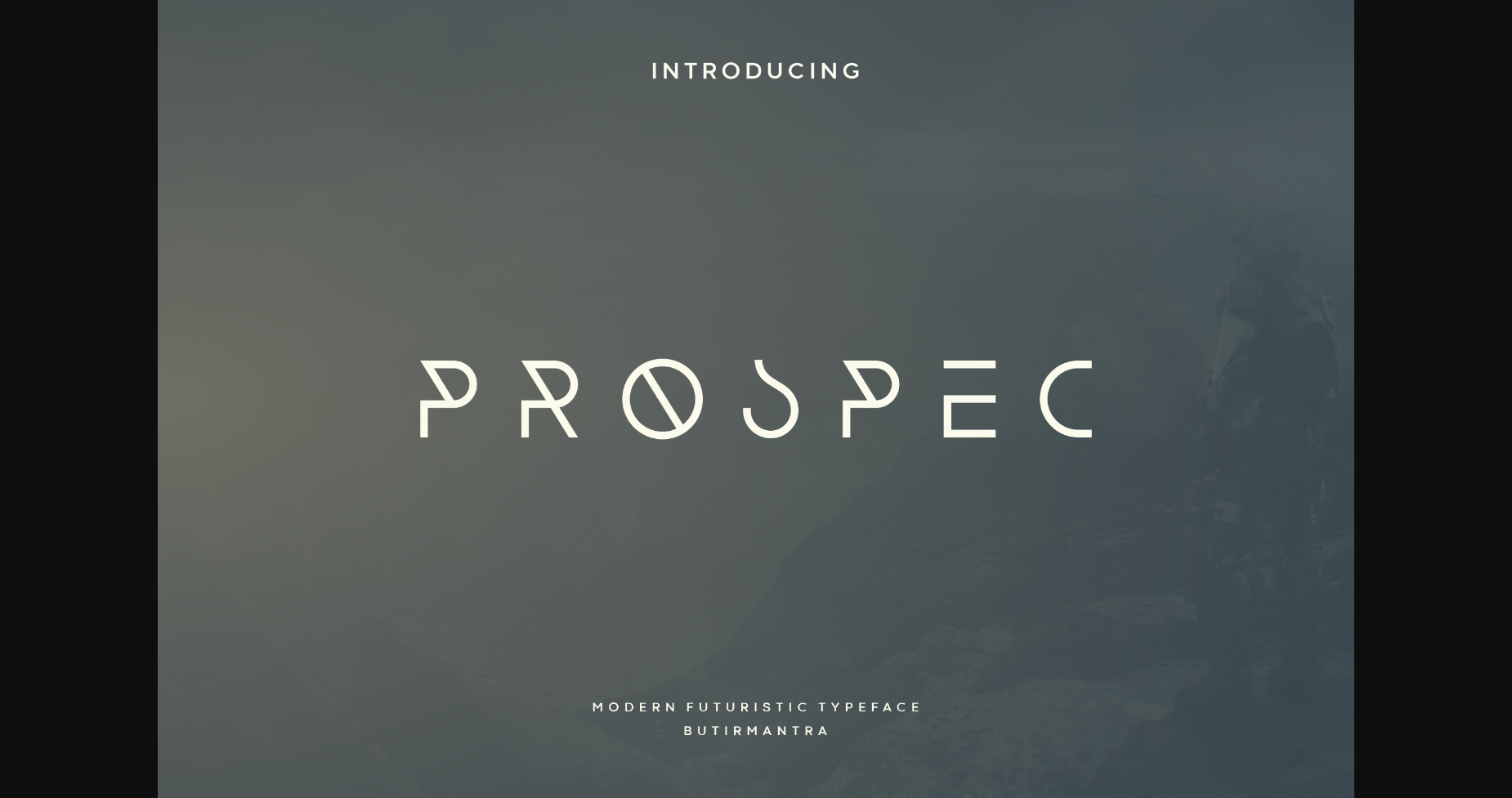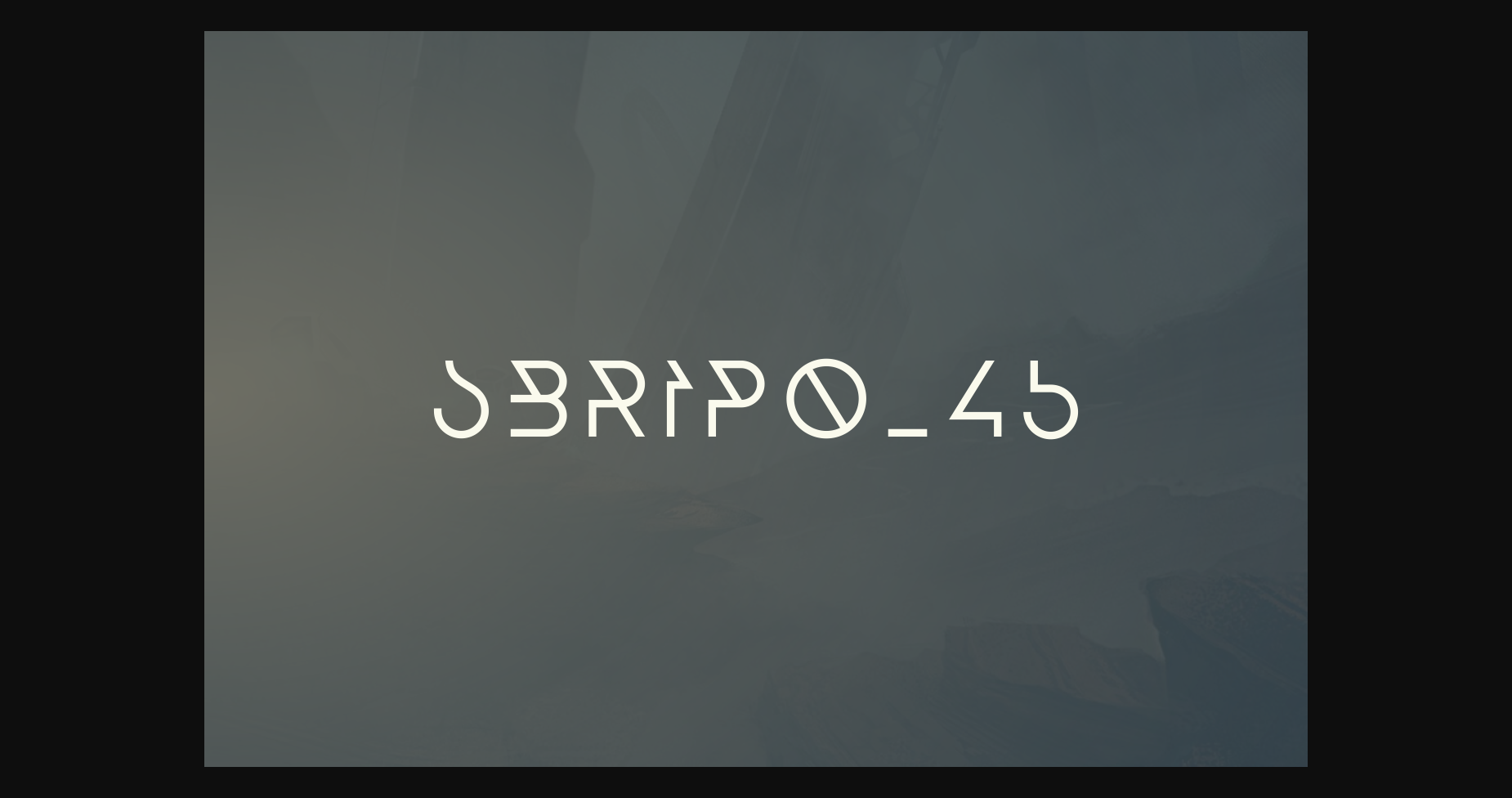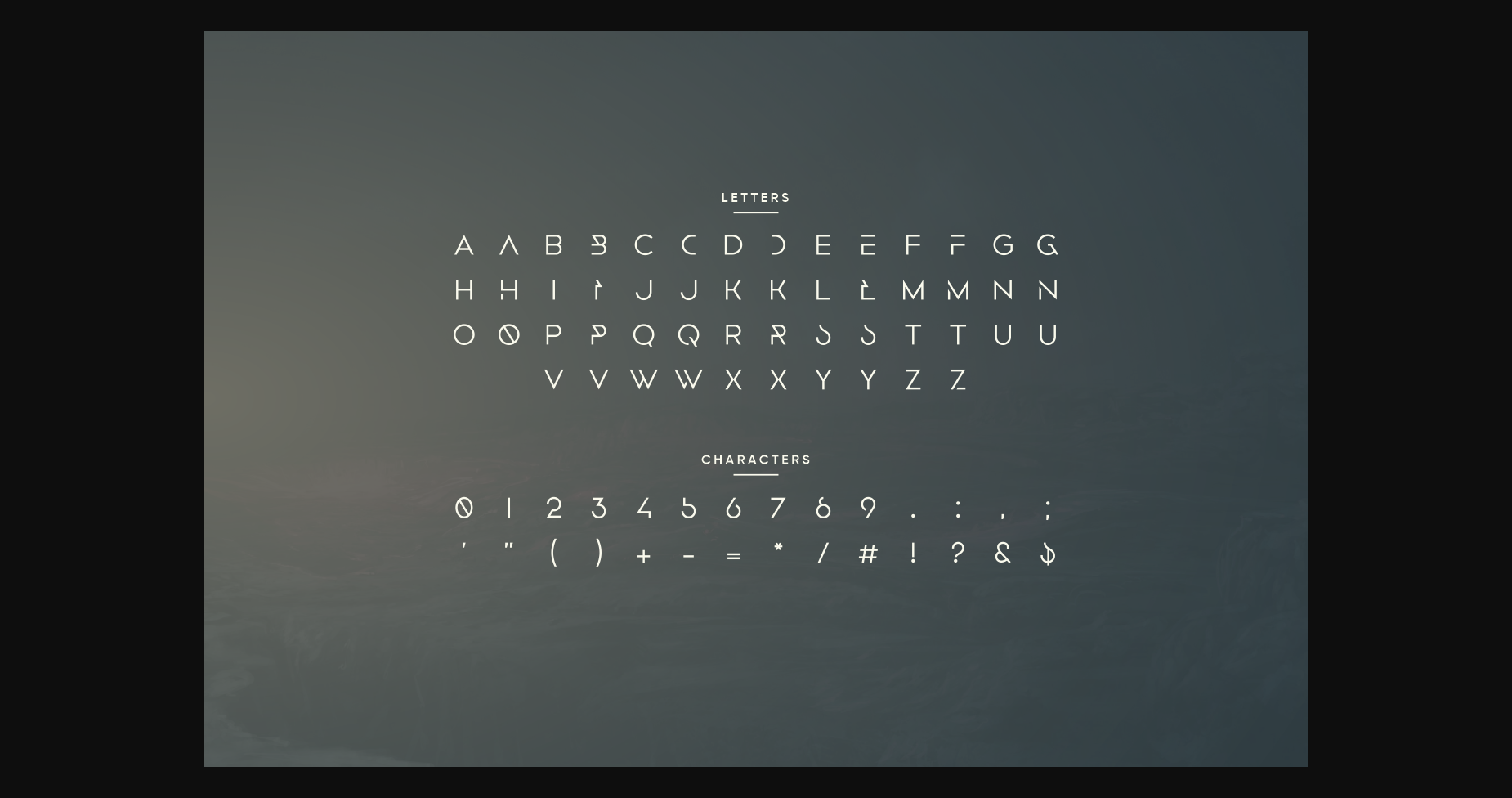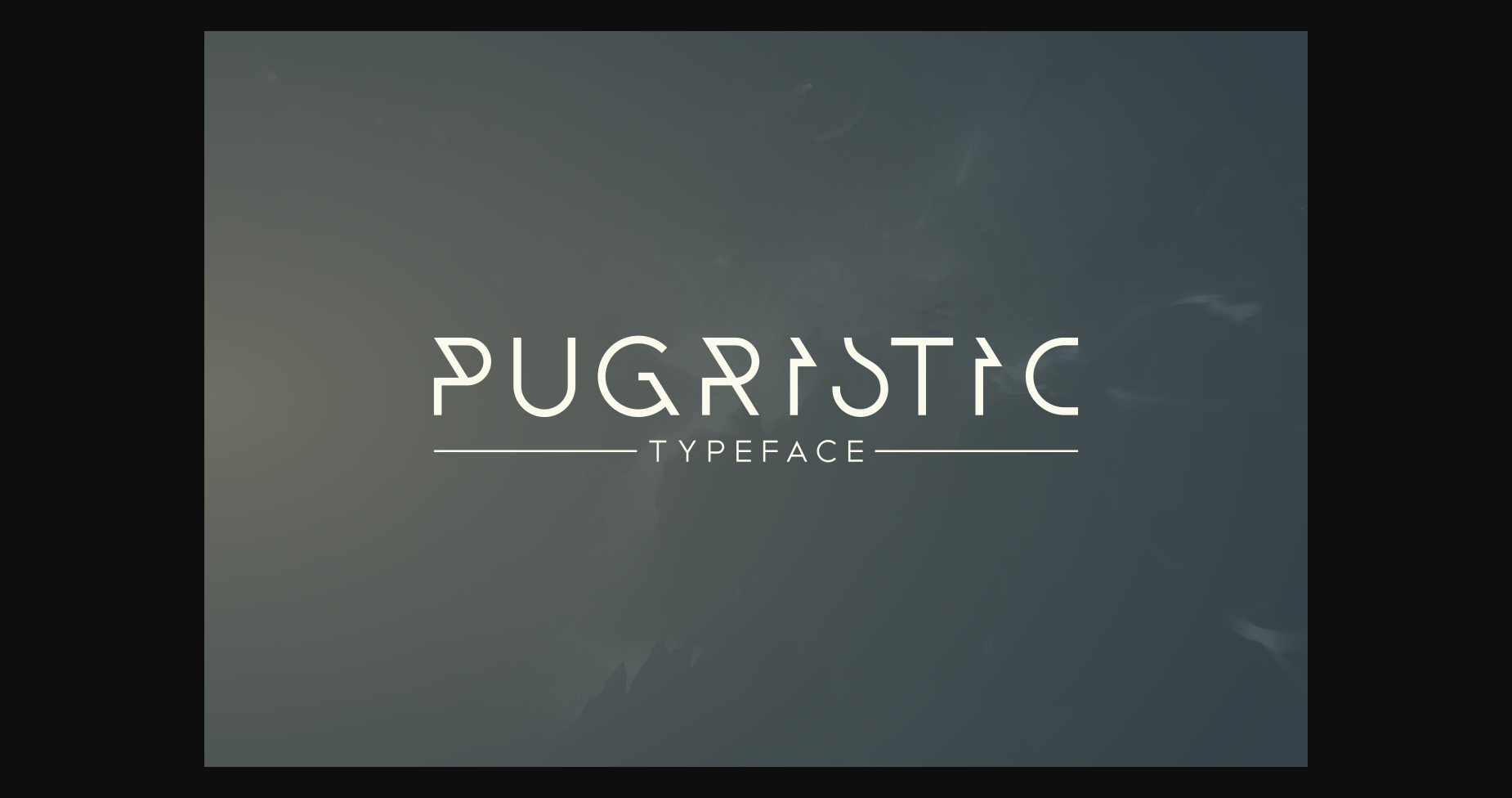
Prospec Font
About Prospec Font
Prospec is a luxury font that comes in all caps that will make your designs look both futuristic and modern, using a simple design for a clean and elegant look. You can use this font for any purpose, especially for creating future designs. This font is great for logo designs, posters, magazines, headlines, and many other designs, it is a very sophisticated font that will make your designs stand out!